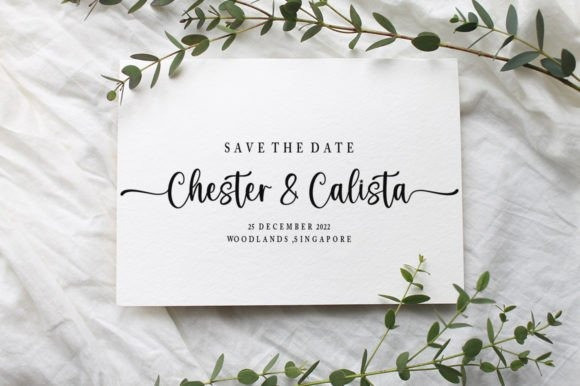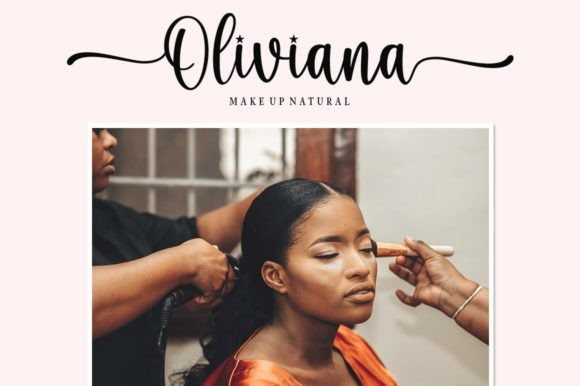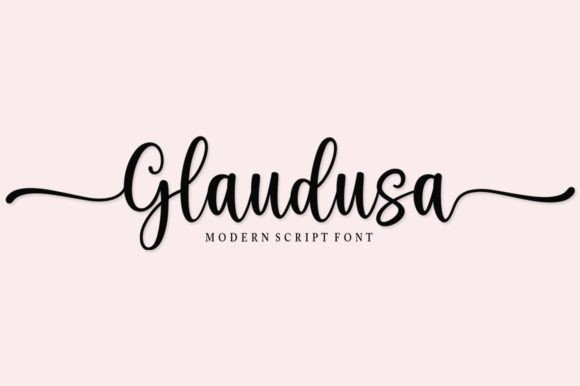
Glaudusa Font
Glaudusa Script Font is a lovely and sweet handwritten font. This gentle font will look gorgeous on a variety of design ideas. It will add a joyful and romantic touch to each of your projects!